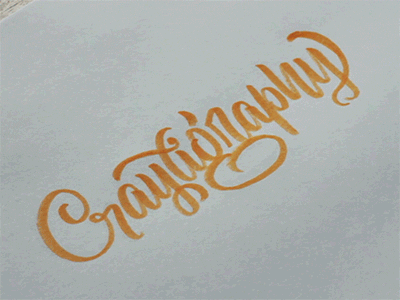
Learn Crayligraphy with Colin Tierney
Yesterday experienced lettering artist Colin Tierney launched 'Crayligraphy', a place to learn 'Crazy Crayola Calligraphy'. Those of you that are familiar with Colin's work will already know that he's been experimenting with Crayola pens as a lettering tool for some time now, and has been getting some pretty great results within his work.
What You Will Learn
Over the coming weeks Colin will approach new topics helping you to learn some of the core skills required to become a versatile lettering artist. Some of the things he states that you will learn are:
· Basic fundamentals of calligraphy and how to emulate brush strokes without the aid of a soft flexible tip. · How to create letterforms utilizing cohesive techniques from writing and drawing to manipulate various styles of calligraphy and hand lettering. · How to turn your work into silky smooth vectors using specific tools and applications.
'Crayligraphy' Advantages
'Crayligraphy' is taught by Colin who is very experienced at using Crayola pens, and this alone is a great reason to invest some time in learning this method of lettering. Another huge advantage of learning this method of lettering is that the tools are very cheap and easy to access. There is also a lot less confusion involved when selecting the right tools to use.
Colin describes 'Crayligraphy' as an easier learning curve on a journey towards brush lettering with a brush pen. When choosing a brush pen as a new lettering artist it can be overwhelming, there are many options, many brands, and many different types of pen tips. Getting to the right brush pen can be a long and expensive journey, however when working with Crayola pens there are just a few different varieties to choose from. More often than not they can be bought from a local stationary shop or toy store at a reasonable price, unlike some types of brush pen which can be very hard to track down or expensive to get a hold of.
I caught up with Colin a few months ago to interview him as part of the 'Lettering Legend' series, and in his interview at the time when I asked him about 'Crayligraphy' he thought that it was harder to master than brush lettering.
The learning curve from a brush pen to a Crayola marker is fairly steep. A brush is easier to write with because it allows for an easier thick-to-thin transition based on the applied pressure between up and down strokes. Conversely, a marker is more difficult to write with because the nib isn’t flexible which demands more hand and wrist movement. To emulate a brush stroke using a Crayola marker, one has to compensate for the stiffness by loosening the wrist.
I had another conversation with Colin more recently and he had a new insight on this, after more experimenting and teaching some workshops he realised that 'Crayligraphy' is actually more suited to beginners than he first thought.
The less flex in a brush—the more resistance between the tip and paper— the better control— the easier to write.
For this reason, a Crayola marker will soon be your best friend and go-to resource when practicing calligraphy. Since Crayolas are not brush pens, by default, they have a firmer nib with a subtle flex, allowing you to create thin lines and broad strokes with ease.
Colin's change in mindset is a good example of showing that even very experienced lettering artists can still learn new things, and find new ways to carry out a process. If you have a healthy amount of curiosity and explore often you will always keep learning something new, which can benefit you in so many ways.